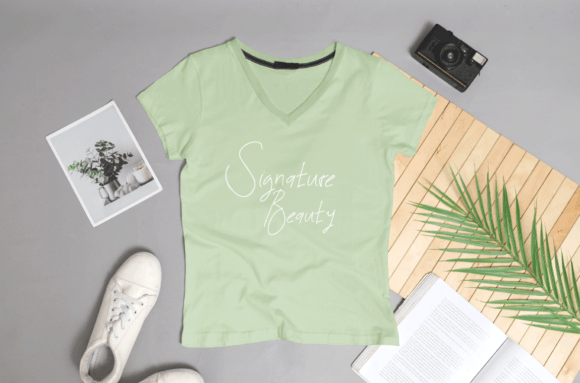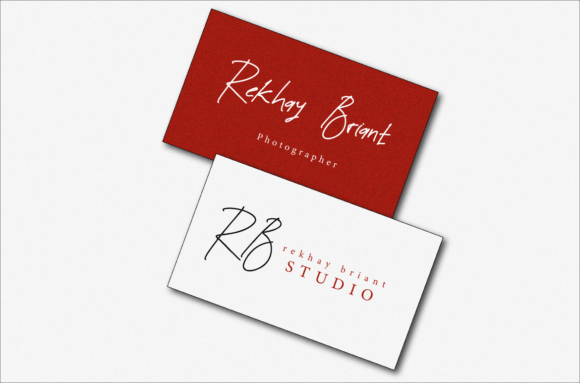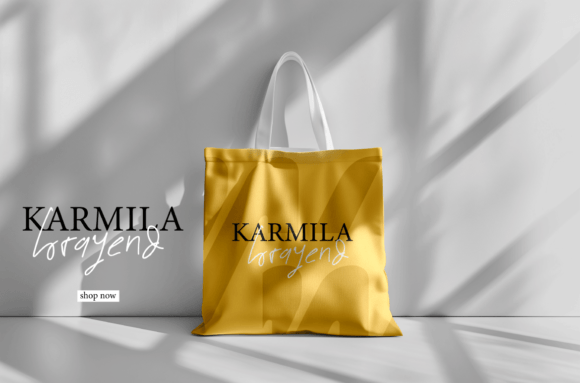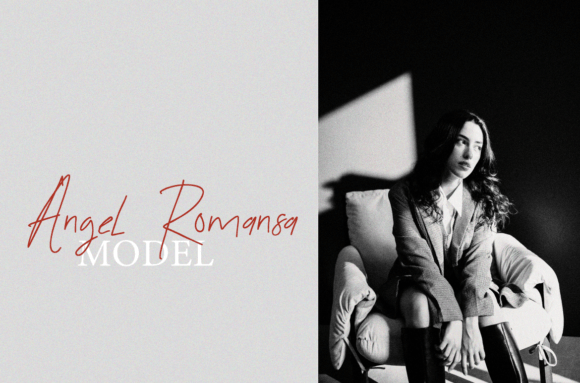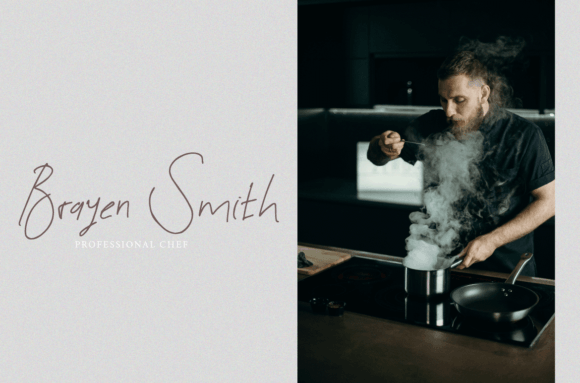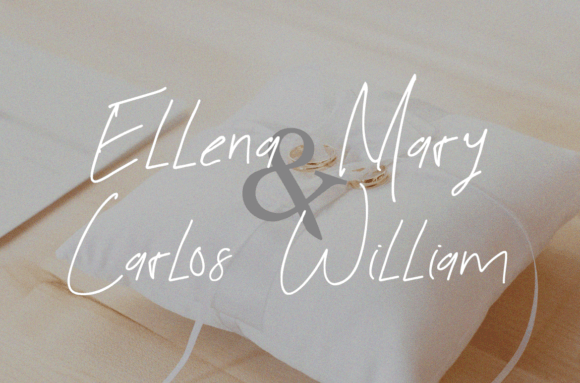
Introduction to Flower Unsafe Font
Flower Unsafe Signature with handmade Signature style, decorative characters, and dancing baselines.
Very beautiful for invitations such as greeting cards, branding materials, business cards, quotes, posters, and more .